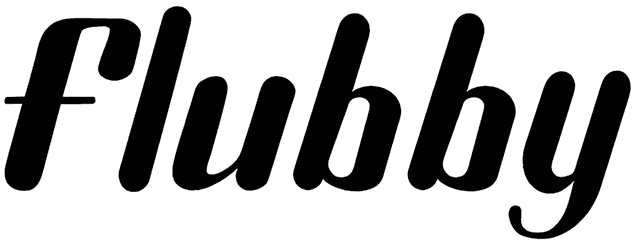
Flubby Font
Designed byPeter Wiegel
If you are in the mood for adding a personalized touch to your artwork such as posters, book covers, banner ads, brochures, and social media posts, we offer to try a logo font like Flubby to achieve your goal.
Since it comes with curved and crooked characters, it can share a sense of playfulness, drama, dynamism, or precision with the audience and grab their attention at first glance.